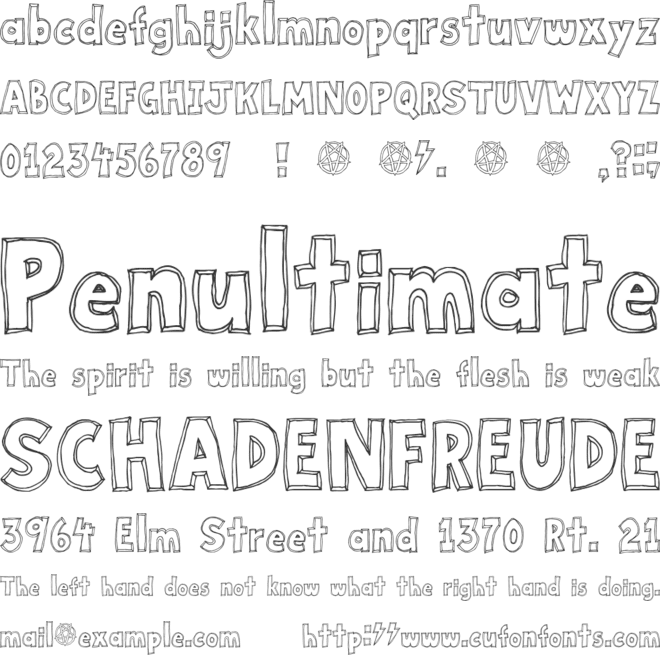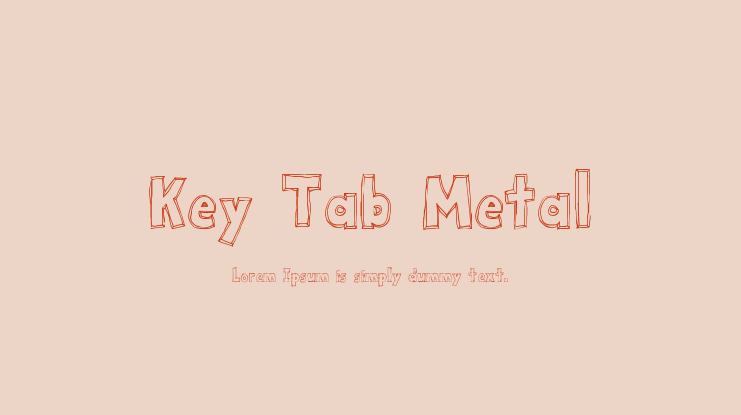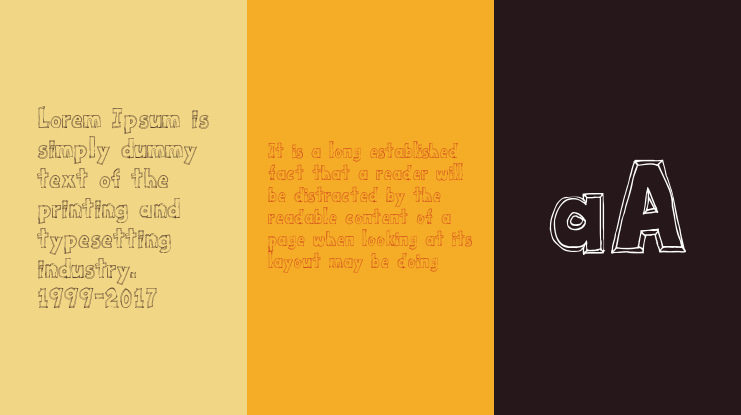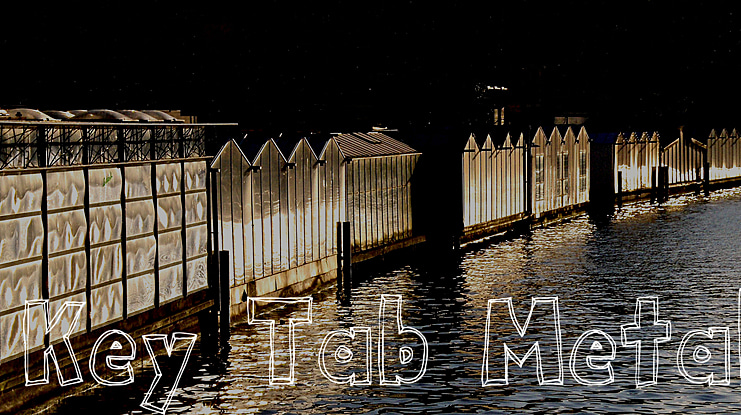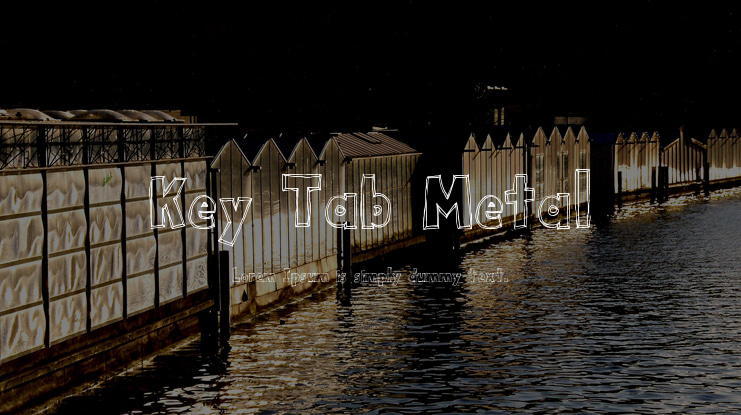
Key Tab Metal Font
Michael Tension
A hand drawn, 80s styled, heavy metal doodle typeface. Includes a bunch of hand drawn metal band logos, pentagrams and skulls. Rad.